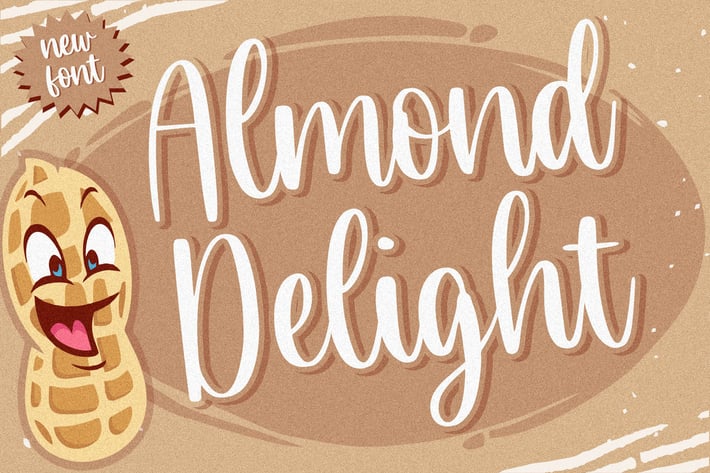
Almond Delight - Modern Handwritten Logo Font
Almond Delight is a Modern Handwritten Font.
Whether you’re using it for crafts, digital design, presentations, or making greeting cards, this font has the potential to become your favorite go-to font, no matter the occasion!
also multilingual support